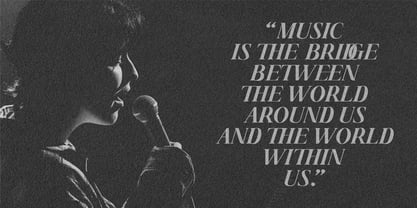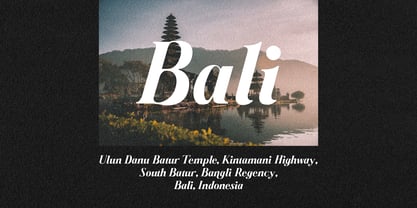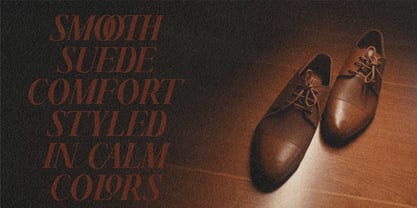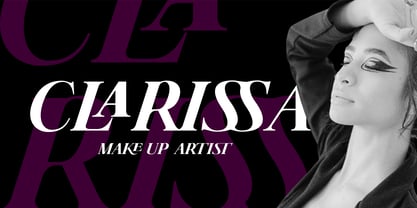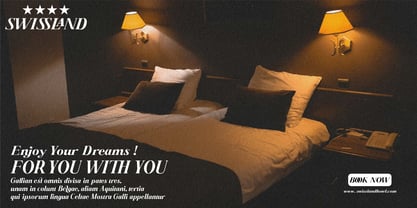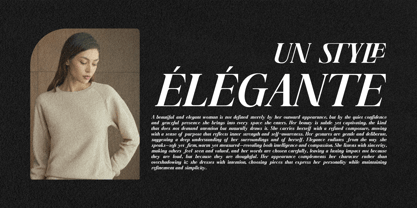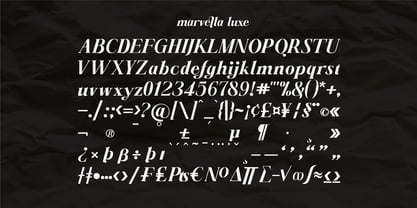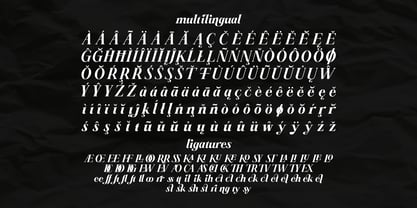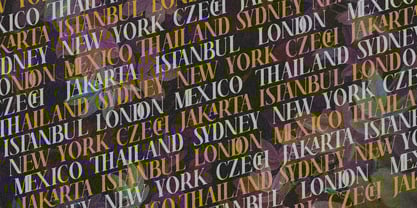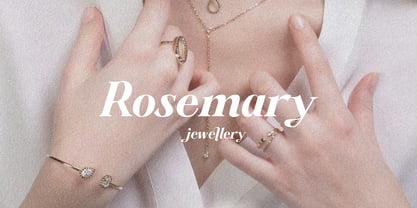
Marvella Luxe
by Zamjump
The Marvella Luxe Font Family was designed by Zamjump, Ahmad Zamzami and published by Zamjump. Marvella Luxe contains 1 styles. More about this family
Marvella Luxe, an exquisitely elegant display typeface crafted for designers who seek sophistication with a bold, modern twist. This font features stunning ligatures, refined curves, and a luxurious flow that elevates any visual composition. With its graceful letterforms and stylish spark-like accents, Marvella Luxe is perfect for branding, editorial layouts, fashion projects, packaging, logos, and high-end visual identities. The font balances classic elegance with contemporary charm, making your text feel both artistic and effortlessly premium. Marvella Luxe brings a touch of refinement to every word—captivating, expressive, and undeniably striking.